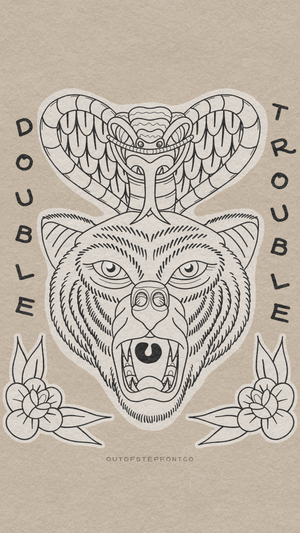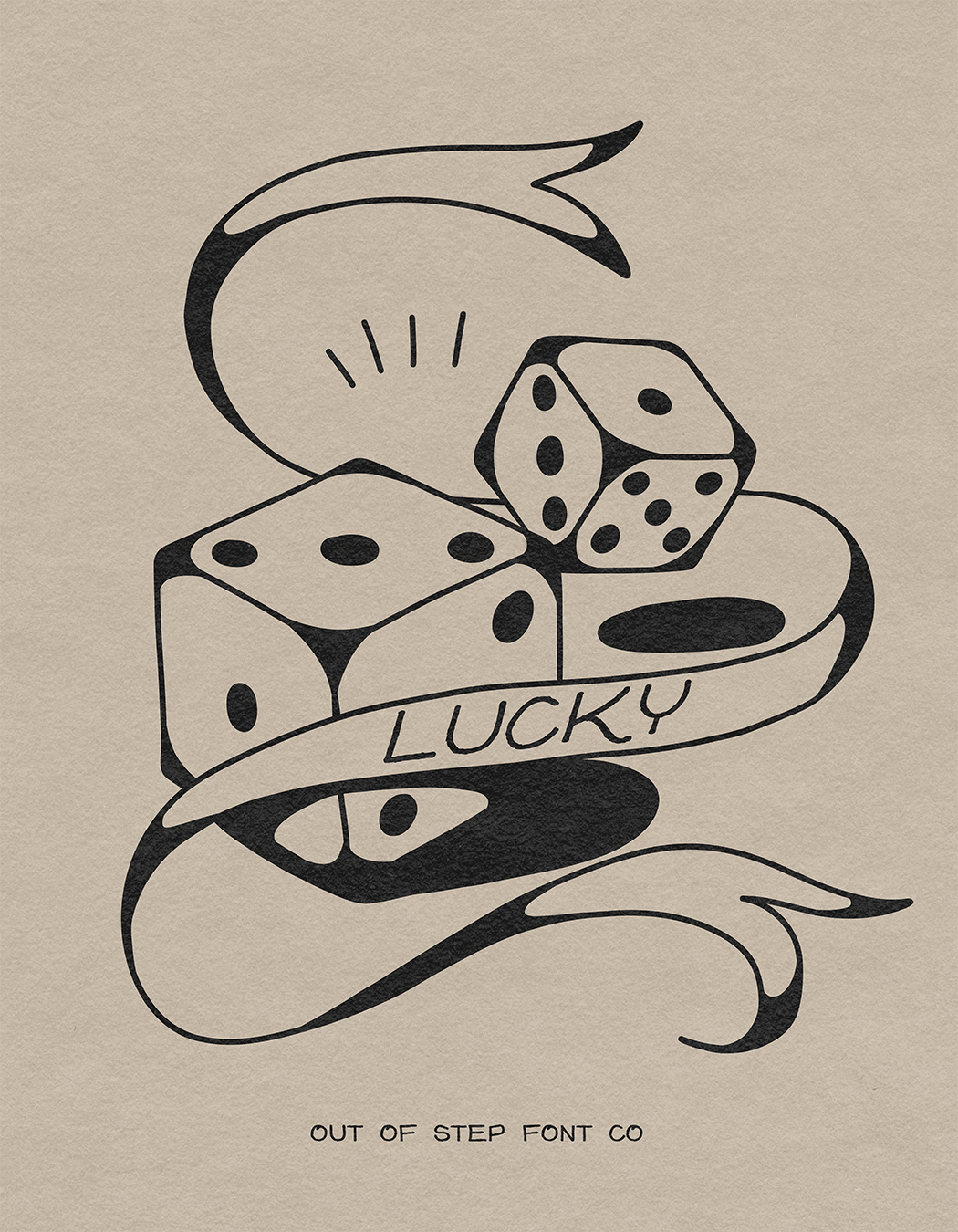
Sailor Sans
About the Typeface
Sailor Sans is a hand-lettered nautical tattoo alphabet featuring a rugged, natural texture and simplified letter forms. I have found that nautical tattoo fonts that are less ornamented are easier to read and integrate into finished merchandise designs, so we created Sailor Sans to more easily fill in the text areas of your t-shirt designs and flash paintings.
Variable Functionality
Sailor Sans can be adjusted to provide a standard line weight, a bold line weight, or your own preferred line weight somewhere in between.